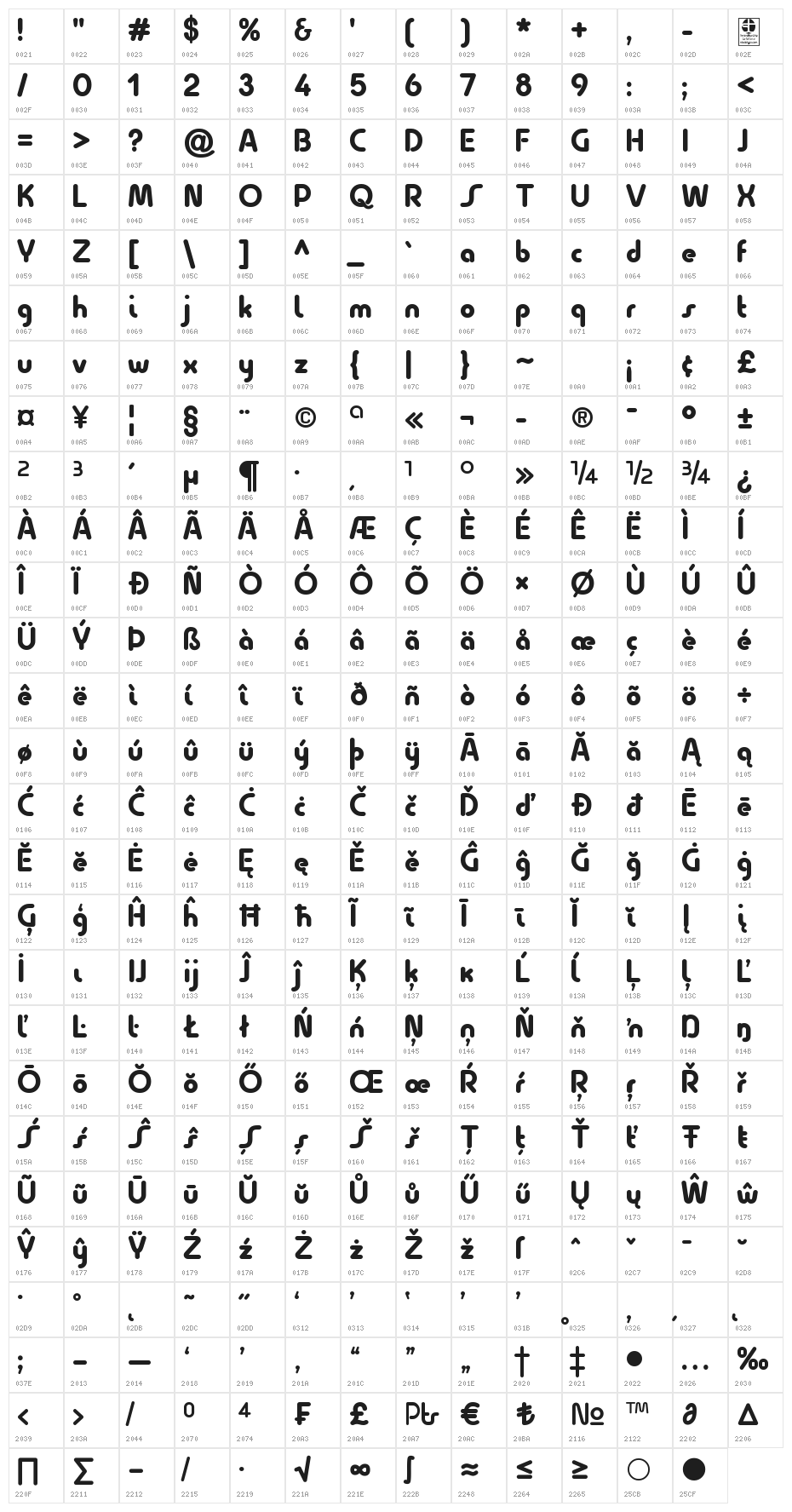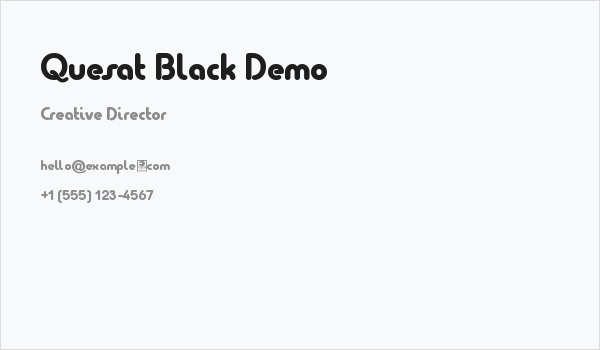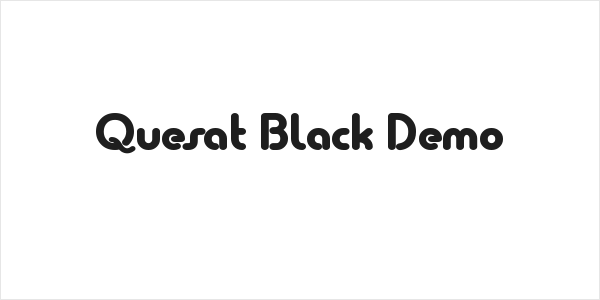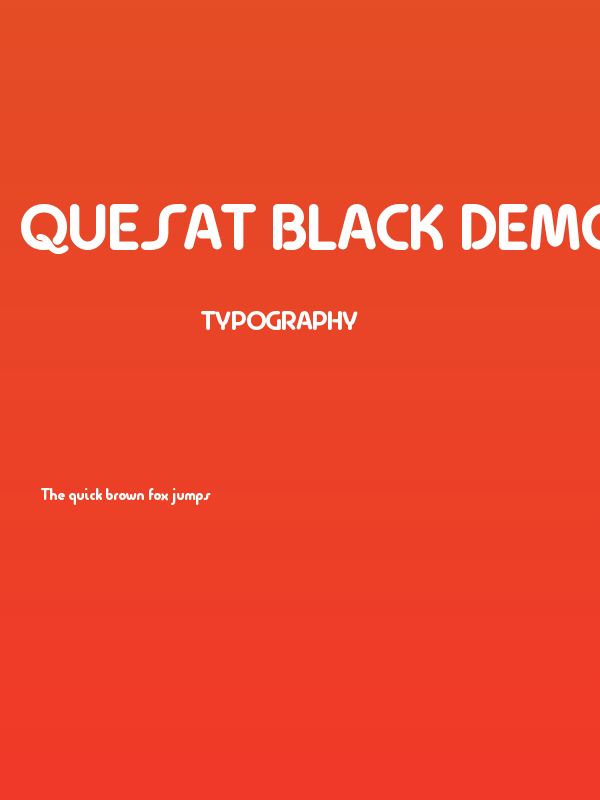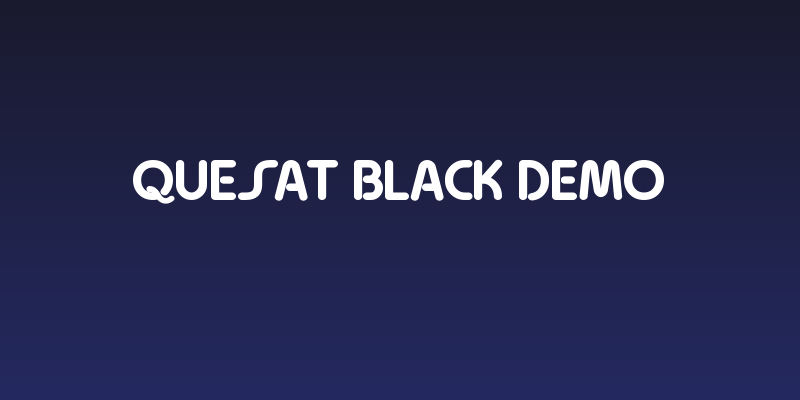
Quesat Black Demo Font
Quesat Black Demo Description
This font features a bold and rounded design, characterized by its smooth curves and playful appearance. The letters are uniformly thick, giving it a strong presence while maintaining a friendly and approachable feel. The rounded edges soften the overall look, making it suitable for casual and informal contexts. The numerals and special characters follow the same design principles, ensuring consistency across all glyphs. This font's unique style makes it stand out, offering a modern twist on traditional rounded fonts.
| Proposed Projects | Ideal for children's books, playful branding, casual invitations, and creative posters. |